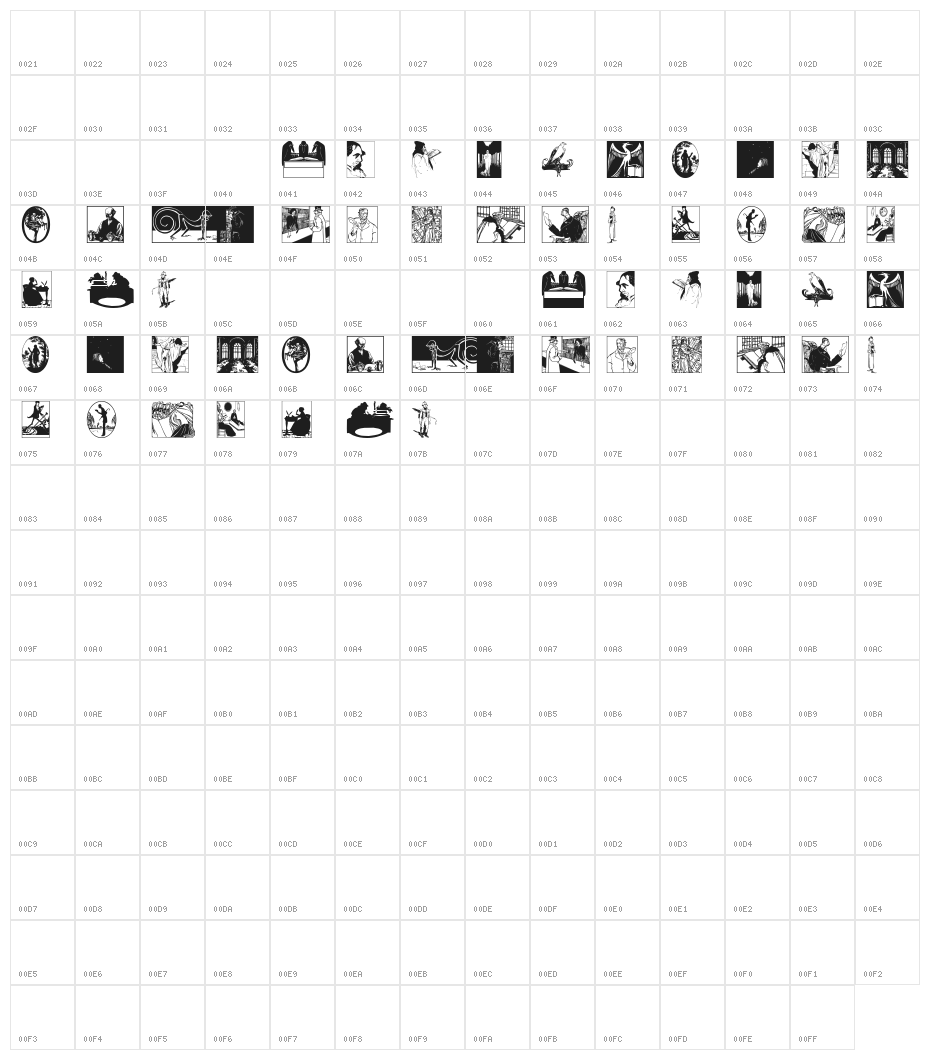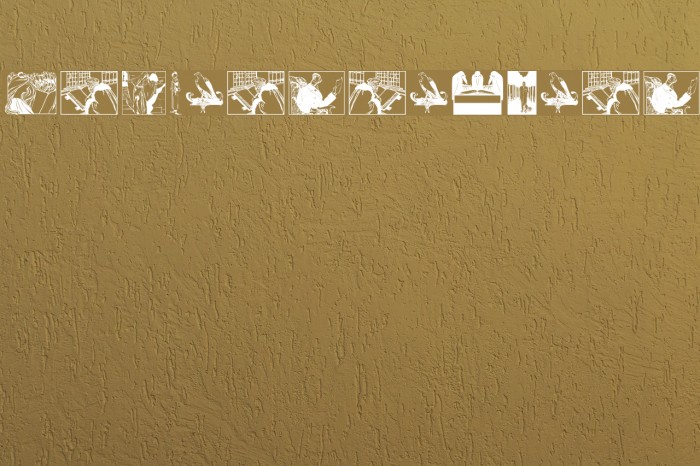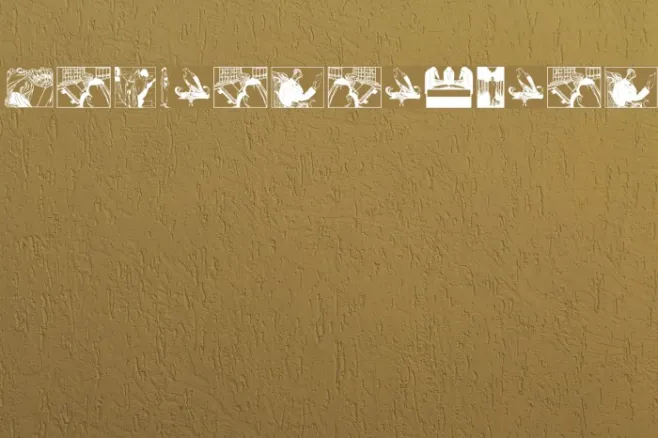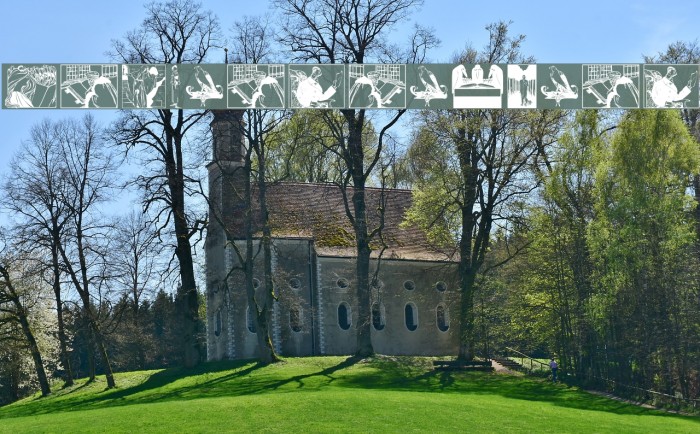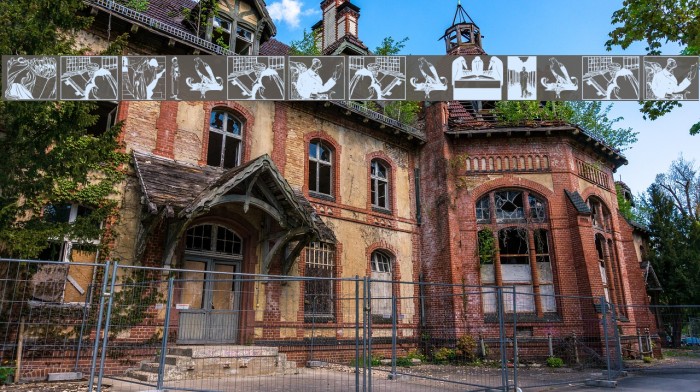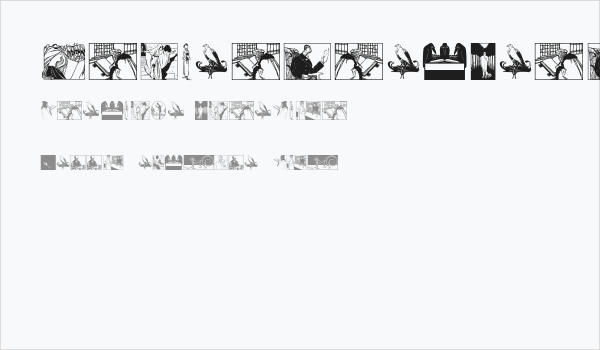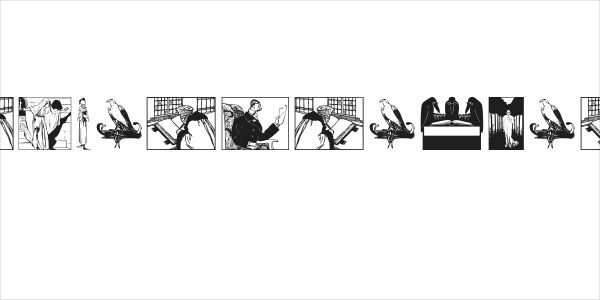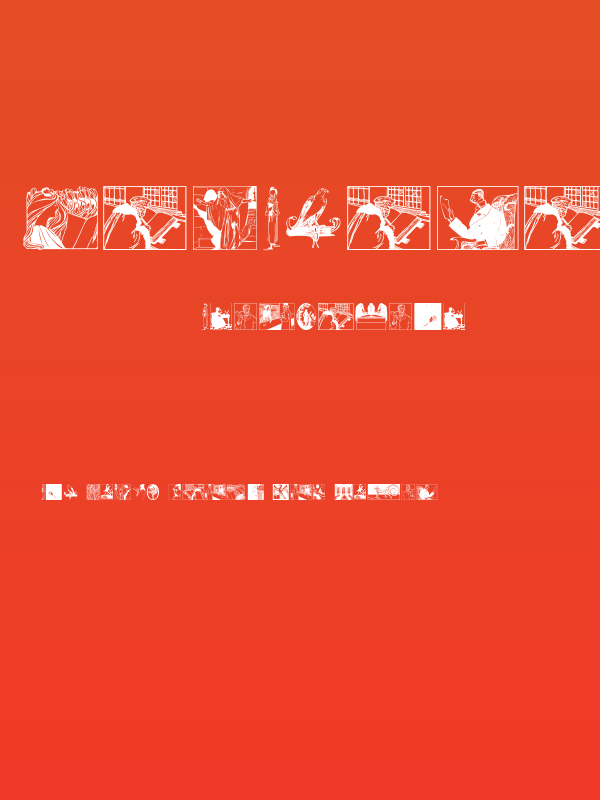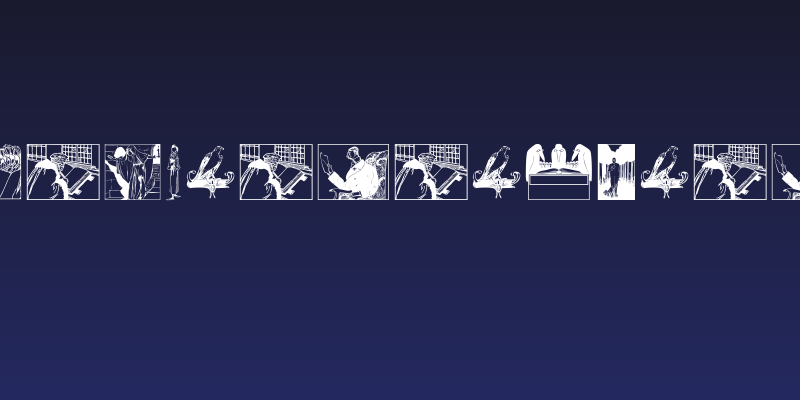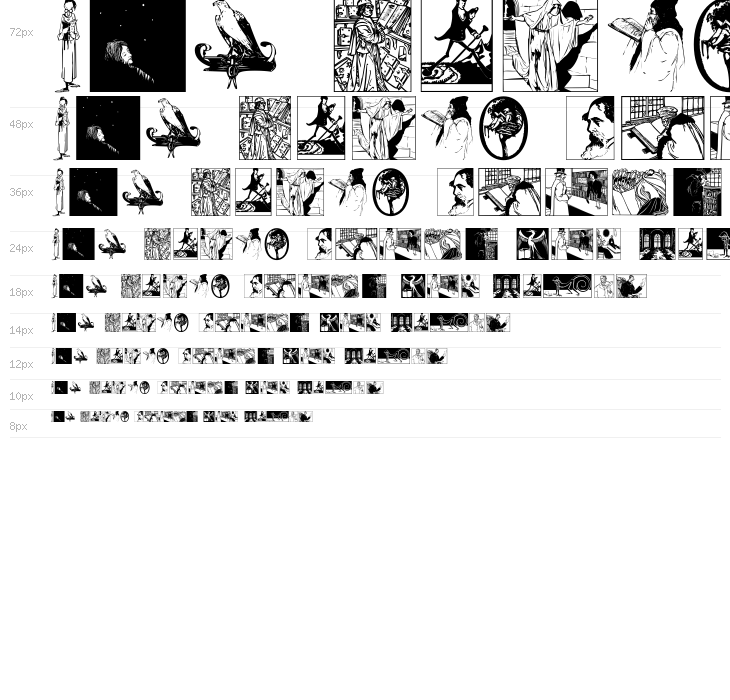
WritersReaders Font
WritersReaders Description
This is not a traditional font but rather a collection of illustrative characters and scenes. Each character is represented by a unique black and white illustration, depicting various figures and activities, such as reading, writing, and other literary themes. The style is reminiscent of classic book illustrations, with detailed line work and a vintage aesthetic. These images are more suited for decorative purposes rather than textual communication, as they do not form a coherent alphabet or numeric system.
| Use Case | Decorative elements, artistic compositions, thematic designs. |
| Proposed Projects | Ideal for use in decorative projects, such as book covers, posters, or artistic compositions that require a literary or vintage theme. |